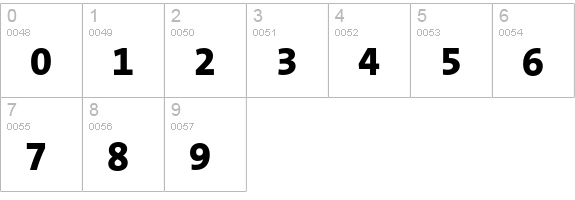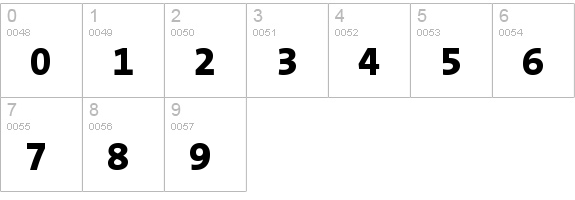
TheSans ExtraBold Expert is an extra-heavy, attention-grabbing variant in the TheSans typeface family \xE2\x80\x94 well suited to high-impact headlines, posters, and bold branding.
TheSans ExtraBold Expert font is the epitome of boldness, strength, and authority. With its robust and commanding design, this font exudes a sense of confidence and power. It is perfect for making a strong impact in any design project, whether it's a logo, headline, or poster. This font features thick, solid strokes that give it a dominant presence on the page. The sharp edges and clean lines add a touch of modernity and sophistication, making it suitable for both digital and print media. TheSans ExtraBold Expert font is guaranteed to catch the eye and leave a memorable impression on anyone who encounters it. What sets this font apart is not only its exceptional design but also its availability. TheSans ExtraBold Expert font is freely available to download at FontsMarket.com, a trusted source for high-quality fonts. This means that designers, creatives, and enthusiasts can enjoy the benefits of this font without any constraints. It's a rare opportunity to access such a remarkable typeface at no cost. Whether you're a professional designer or an aspiring artist, TheSans ExtraBold Expert font is a must-have in your font library. Its versatility and boldness make it suitable for a wide range of applications, from advertising and branding to editorial design and web graphics. Don't miss out on this incredible font that combines power and elegance seamlessly. Download TheSans ExtraBold Expert font for free at FontsMarket.com and unlock the potential to create visually stunning and impactful designs. Elevate your projects with this extraordinary font and make a lasting impression on your audience.